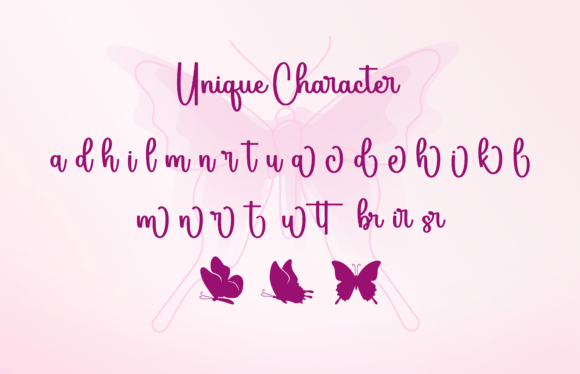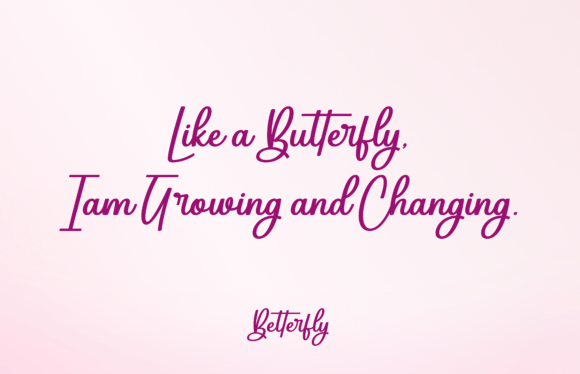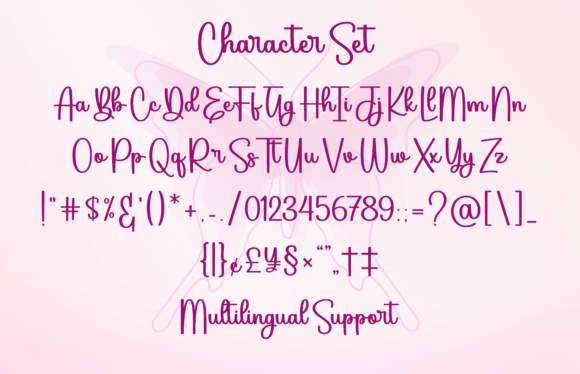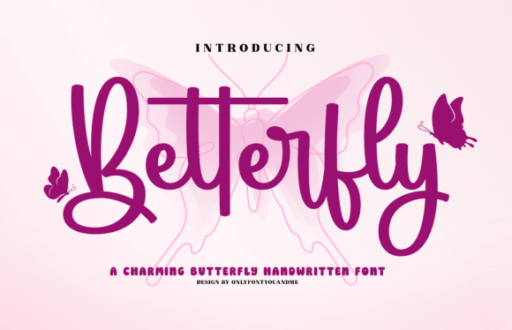
Betterfly Font
“Betterfly” features a cute handwritten style with a playful and delicate butterfly theme. Smooth, flowing strokes and an elegant but fun script style make this font great for creative and girly designs. The well-balanced letter shapes create a graceful, handmade look with soft curves and stylish flourishes. Adding butterflies to the font and using them to enhance the theme gives it a magical and dreamy feel.
With its elegant look, this font is great for branding, invitations, social media images, and product packaging. Combining big and thin letterforms makes it easy to read while still looking artsy and pretty. “Betterfly” is a great choice for designs that want to show love, beauty, and creativity because it has subtle butterfly elements and a handwritten charm.
Betterfly Font is a Script And Handwritten font that brings a professional and versatile look to your projects. “Betterfly” features a cute handwritten style with a playful and delicate butterfly theme.